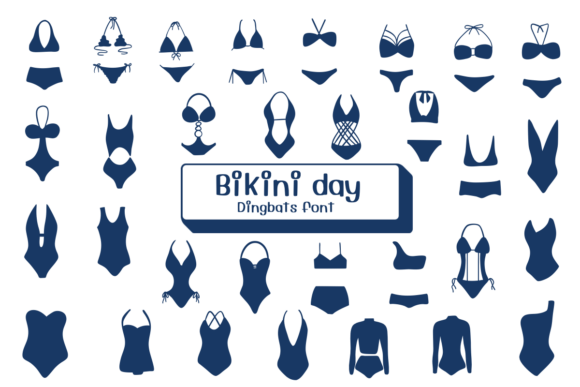
Bikini Day Font: Add a Splash of Summer Style to Your Designs
Are you looking for a fun and stylish font to add a touch of summer flair to your designs? Look no further than the Bikini Day Font! This delightful dingbat font is filled with a variety of swimsuit silhouettes, making it perfect for summer designs, fashion branding, beach-themed invitations, or any project that needs a dash of seasonal style.
What is Bikini Day Font?
Bikini Day Font is a unique dingbat font that features a collection of swimsuit silhouettes, including bikinis, one-pieces, tankinis, and more. The font is designed to add a playful and stylish touch to your designs, making it perfect for a variety of applications, from fashion branding to beach-themed invitations.
Key Features of Bikini Day Font
- Variety of Swimsuit Silhouettes: The font features a wide range of swimsuit silhouettes, including bikinis, one-pieces, tankinis, and more.
- Fun and Playful: The font is designed to add a playful and stylish touch to your designs.
- Perfect for Summer Designs: The font is perfect for summer designs, fashion branding, beach-themed invitations, or any project that needs a dash of seasonal style.
Uses for Bikini Day Font
Bikini Day Font is a versatile font that can be used for a variety of applications, including:
- Fashion Branding: Use the font to create stylish and eye-catching fashion branding, including logos, business cards, and packaging.
- Beach-Themed Invitations: Use the font to create fun and playful beach-themed invitations for parties, weddings, and other events.
- Summer Designs: Use the font to add a touch of summer style to your designs, including posters, flyers, and social media graphics.
- Web Design: Use the font to create stylish and eye-catching web designs, including website headers, buttons, and graphics.
Tips for Using Bikini Day Font
Here are a few tips for using Bikini Day Font:
- Use it Sparingly: Use the font sparingly to add a touch of style to your designs. Overusing the font can make your designs look cluttered and busy.
- Pair it with Other Fonts: Pair the font with other fonts to create a unique and stylish look.
- Experiment with Colors: Experiment with different colors to find the perfect combination for your design.
Bikini Day Font is a fun and stylish font that is perfect for adding a touch of summer flair to your designs. With its variety of swimsuit silhouettes and easy-to-use design, it’s perfect for a variety of applications, from fashion branding to beach-themed invitations. So why not give it a try and add a splash of summer style to your designs?
- What is Bikini Day Font? Bikini Day Font is a unique dingbat font that features a collection of swimsuit silhouettes.
- What is the font used for? The font can be used for a variety of applications, including fashion branding, beach-themed invitations, summer designs, and web design.
Here are some examples of what the font looks like: